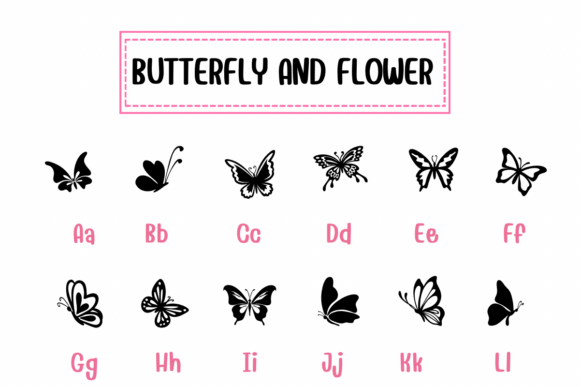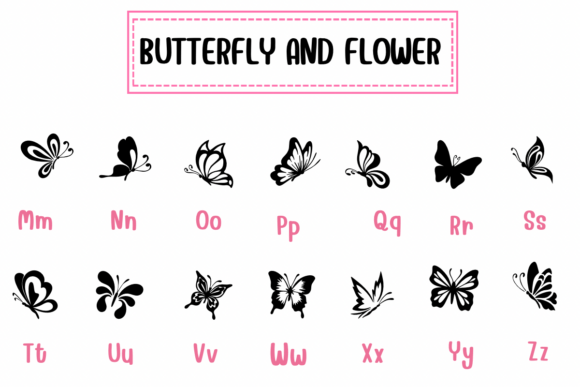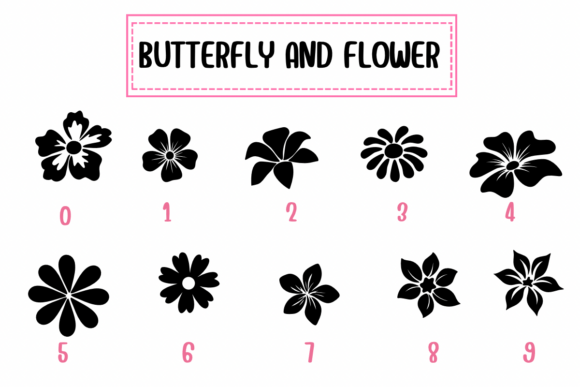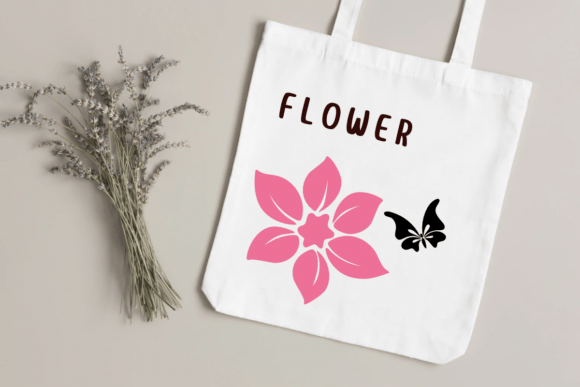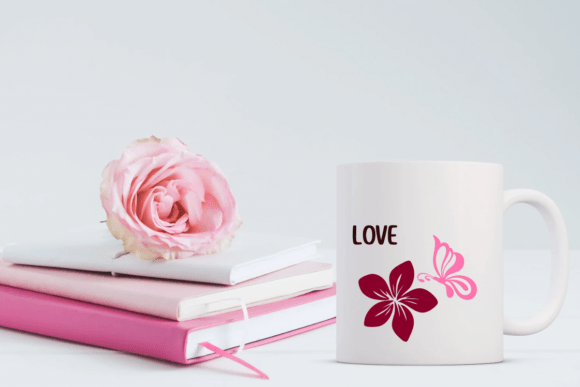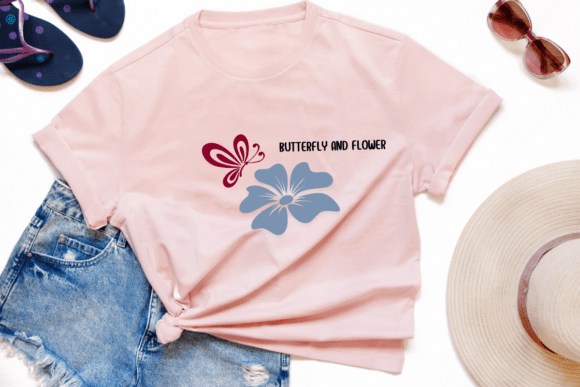
Unleashing Whimsy with the Butterfly and Flower Font
There’s something magical about stepping into a garden on a warm spring morning, surrounded by the sweet scent of blooming flowers and the gentle dance of butterflies. It’s a moment that inspires creativity and sparks the imagination. As designers, we often seek fonts that capture the essence of these fleeting moments, and the Butterfly and Flower Font is a perfect representation of that whimsical charm.
This charming collection of delicate butterflies and blooming flowers in silhouette style is a must-have for any designer looking to add a touch of romance and elegance to their projects. Whether you’re working on a spring-themed design, a romantic layout, or a craft project, the Butterfly and Flower Font is sure to bring a smile to your face and a touch of magic to your creations.
As a valuable addition to any designer’s toolkit, the Butterfly and Flower Font offers endless possibilities for creative expression. Its versatility and charm make it a go-to choice for designers seeking to add a touch of whimsy to their work.
Key Features of Butterfly and Flower Font
- Unique Characteristics: Delicate, hand-drawn design featuring intricate floral patterns and whimsical butterfly motifs
- Style Options: Includes regular, bold, and italic styles for added versatility
- Scalability: Optimized for use in various design contexts, from small text to large headings
Butterfly and Flower Font Review
Overall, I think the Butterfly and Flower Font is a beautiful, whimsical design that can add a touch of elegance to any project. ✨ Its unique combination of delicate flowers and butterflies creates a sense of wonder and magic. The font is perfect for designers looking to add a romantic or vintage feel to their work.
Here are some of the things that I think work well with this font:
- ✨ The intricate details of the flowers and butterflies are meticulously crafted, giving the font a sense of realism.
- ✨ The font is highly customizable, allowing designers to adjust the size, color, and spacing to fit their needs.
- ✨ The font is highly legible, making it easy to read even in smaller sizes.
- ⚠️ The font may be too ornate for some designs, which can make it difficult to read.
- ⚠️ The font may not be suitable for headings or titles, as it can be overwhelming in larger sizes.
Overall, I think the Butterfly and Flower Font is a beautiful addition to any designer’s toolkit. While it may have some limitations, it’s perfect for designers looking to add a touch of whimsy and romance to their work.
Use the Butterfly and Flower Font for:
– Children’s book covers and illustrations.
– Wedding invitations and stationery.
– Branding and packaging for floral or nature-themed businesses.
For best results, use the font in combination with floral or garden-inspired graphics and colors.
Alternatives to Butterfly and Flower Font
The Butterfly and Flower Font is a whimsical, handwritten font often used in children’s book illustrations and design projects requiring a playful touch. However, designers may seek alternative fonts that offer unique characteristics while maintaining a similar aesthetic. Here are a few options:
Curlz
Curlz is a cursive font that features flowing, connected letters. It’s ideal for use in invitations, greeting cards, and other applications where a playful, handwritten feel is desired. Compared to Butterfly and Flower Font, Curlz has a more dramatic flair and is often used in a bolder, more vibrant style.
Great Vibes is a modern script font that captures the carefree spirit of handwritten text. It’s suitable for use in design projects that require a relaxed, casual tone. While similar to Butterfly and Flower Font in its flowing, connected letterforms, Great Vibes has a more refined, sophisticated feel.
Lobster is a fun, cursive font that features exaggerated, swooping lines. It’s perfect for use in applications that require a bold, eye-catching design. Compared to Butterfly and Flower Font, Lobster has a more dramatic, attention-grabbing quality and is often used in headings and titles.